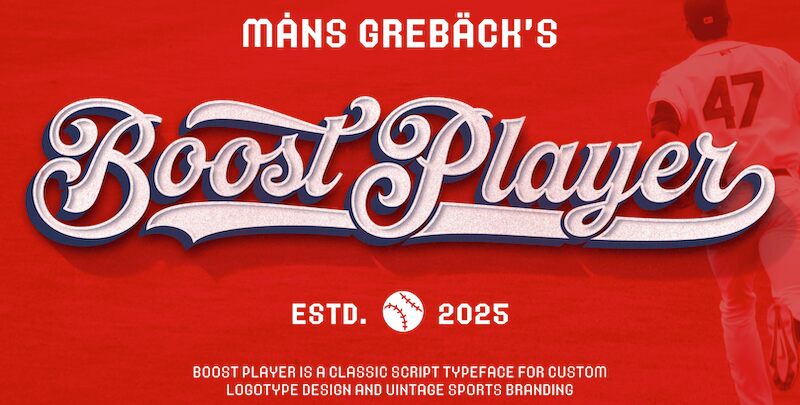
Boost Player font, created by Mans Greback, is a bold cursive brush font with a classic retro vibe. Its stylish and flowing appearance, combined with a touch of vintage-inspired aesthetics and ornamental flourishes, makes it both classy and modern. This free font brings an elegant sophistication to any project in which it's used.
Ideal for sports team logos, cafe menus, book covers, shop branding, or sign-painter style posters. Use Boost Player to design wedding invitations, packaging designs, apparel prints, social media graphics or magazine headers. Achieve an authentic look across digital displays or even handmade artwork projects! The versatility of applications is endless.
Use an underscore (_) to create a swash.
Example: Baseball_
You can use multiple underscores to create longer underlines.
Example: Pennsylvania________